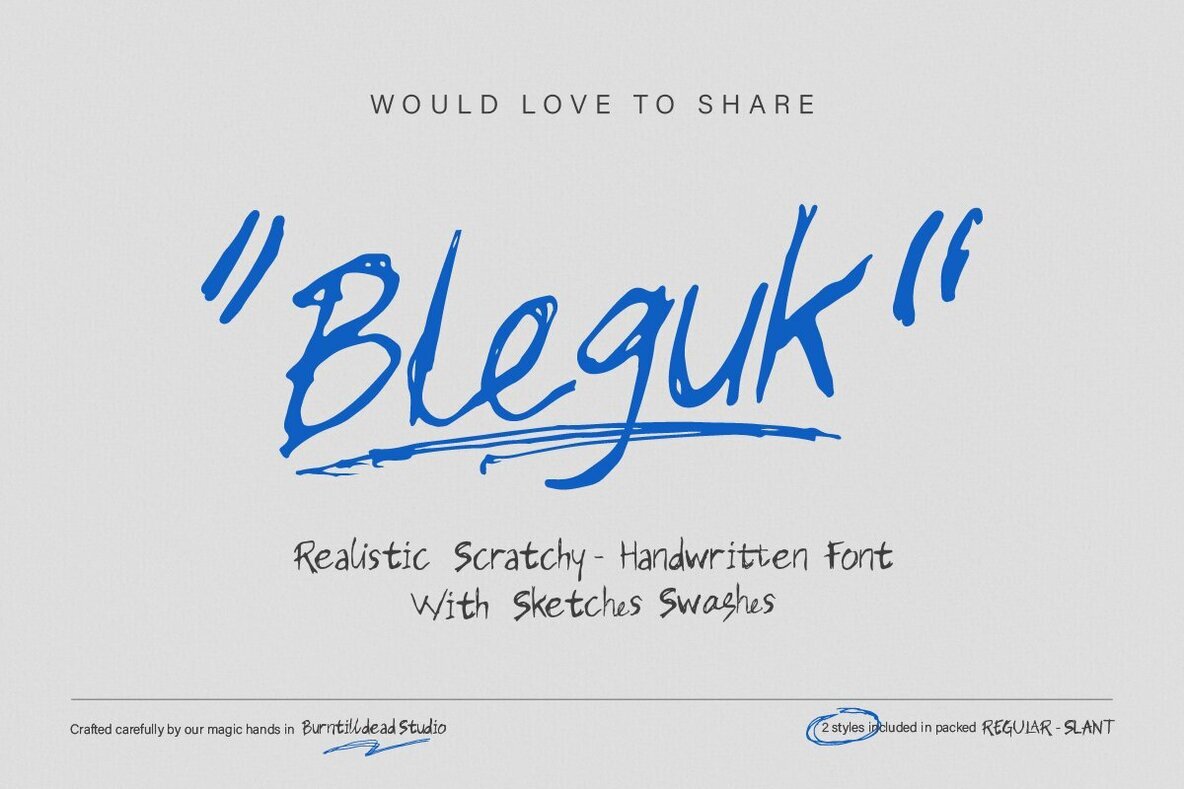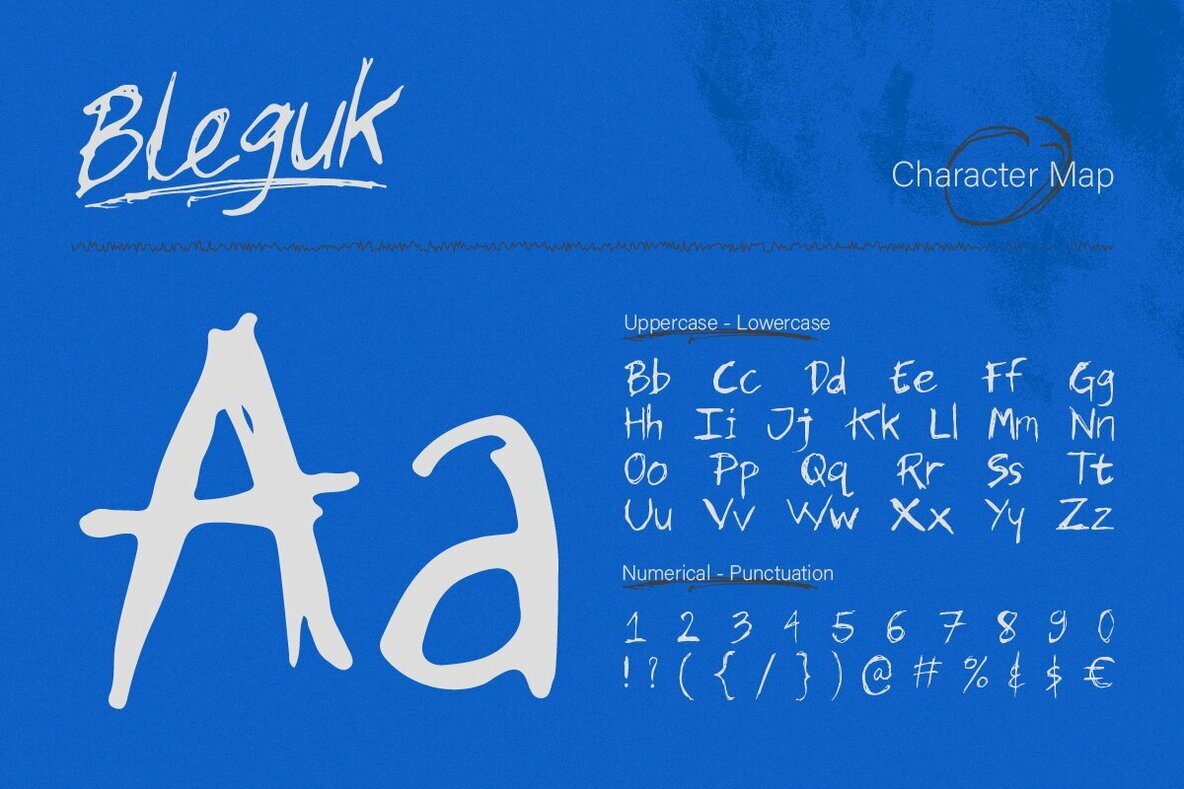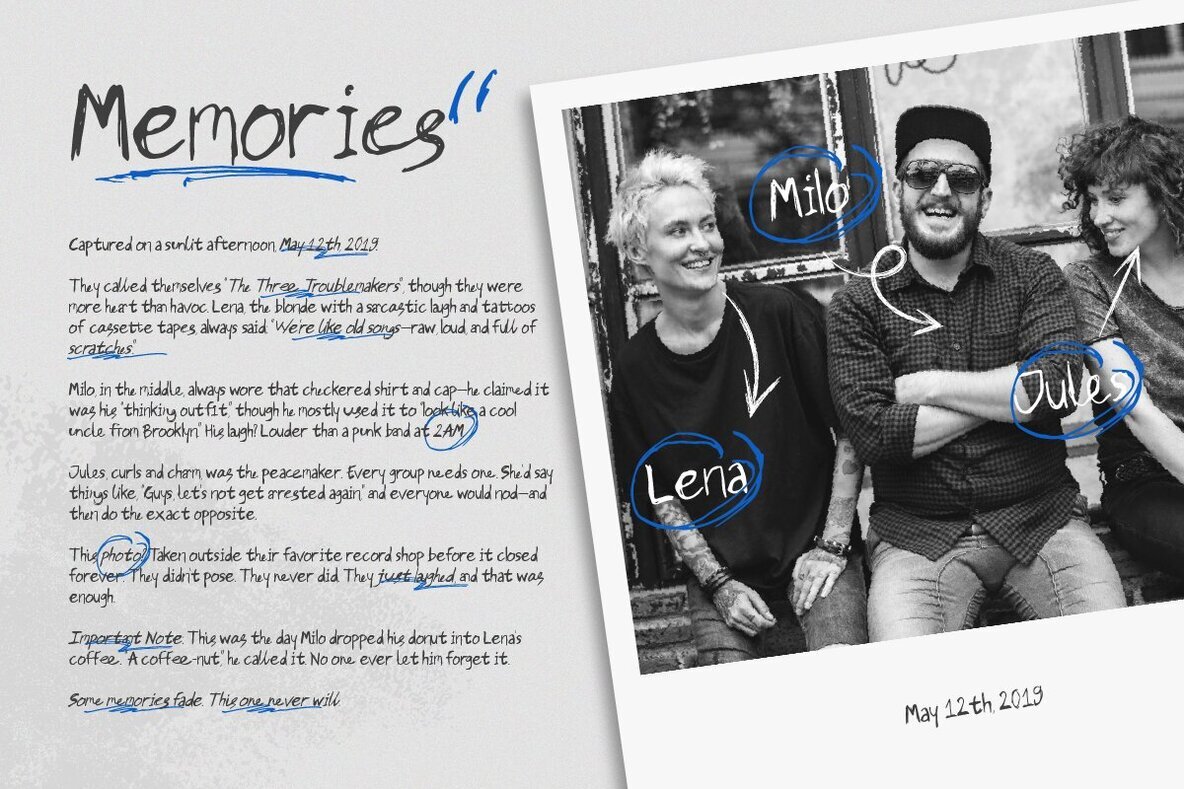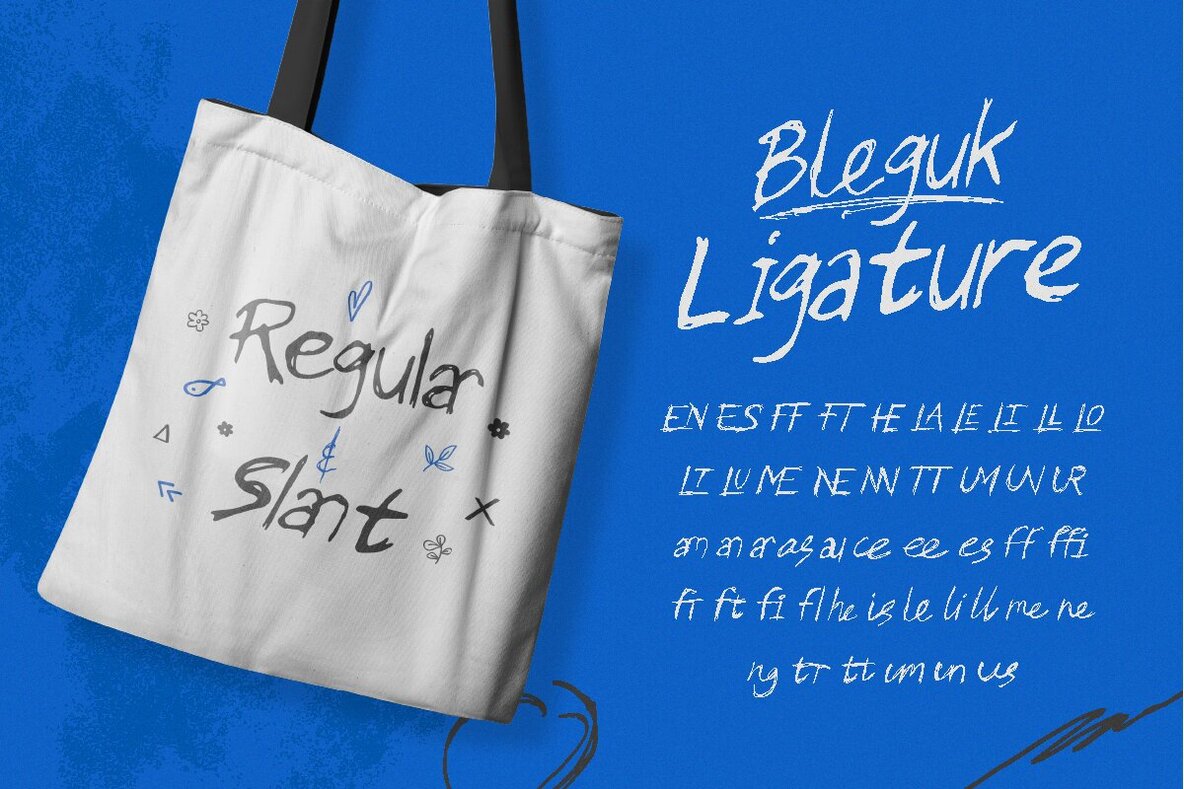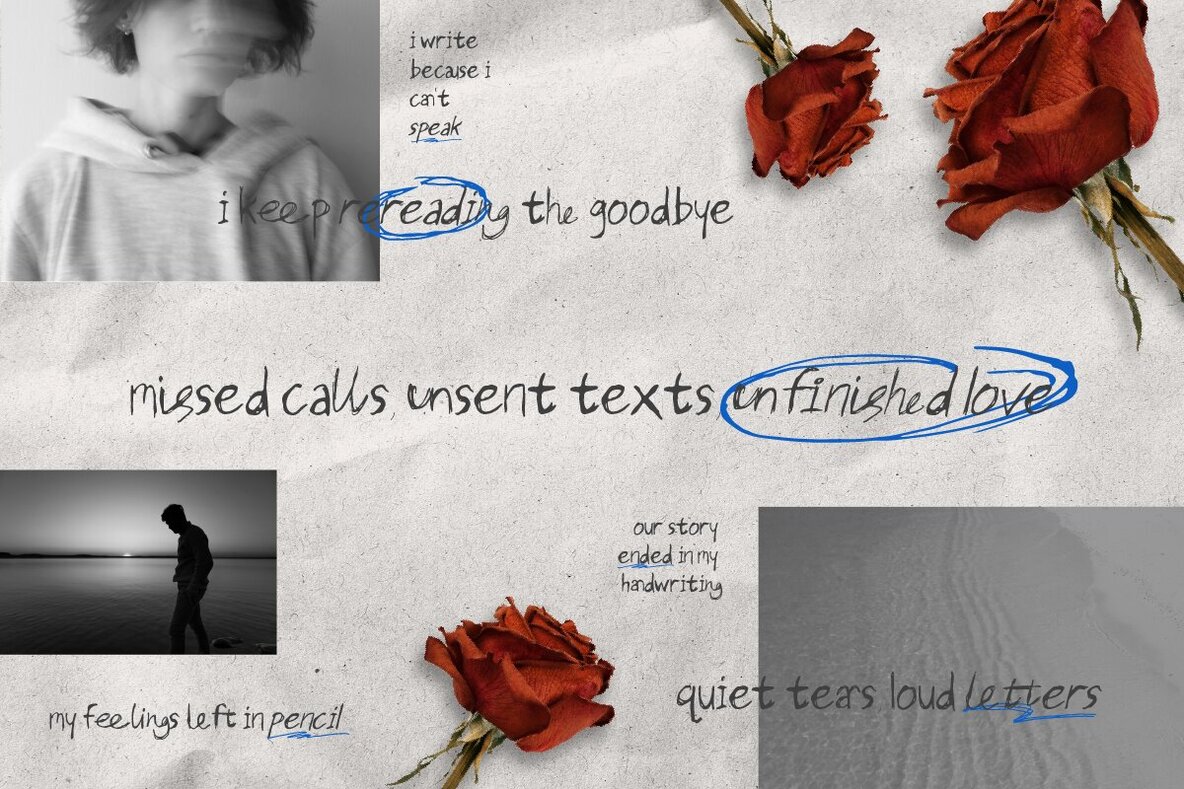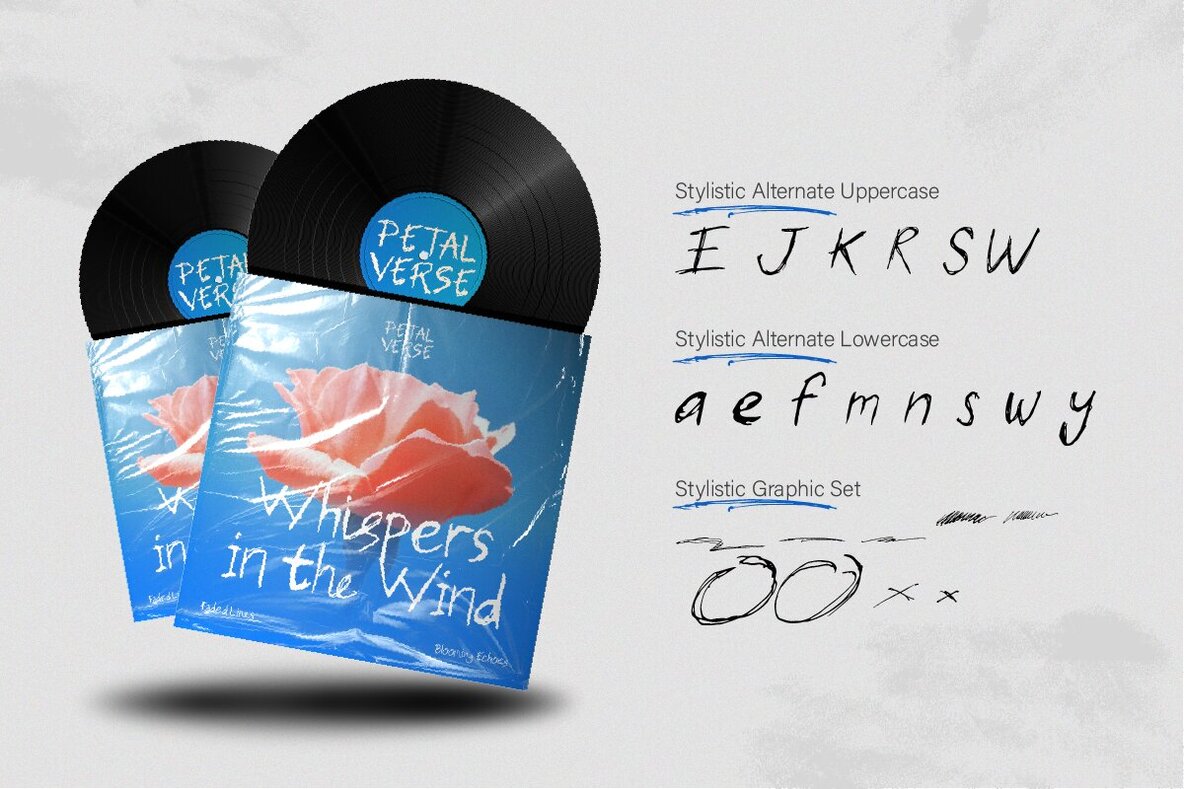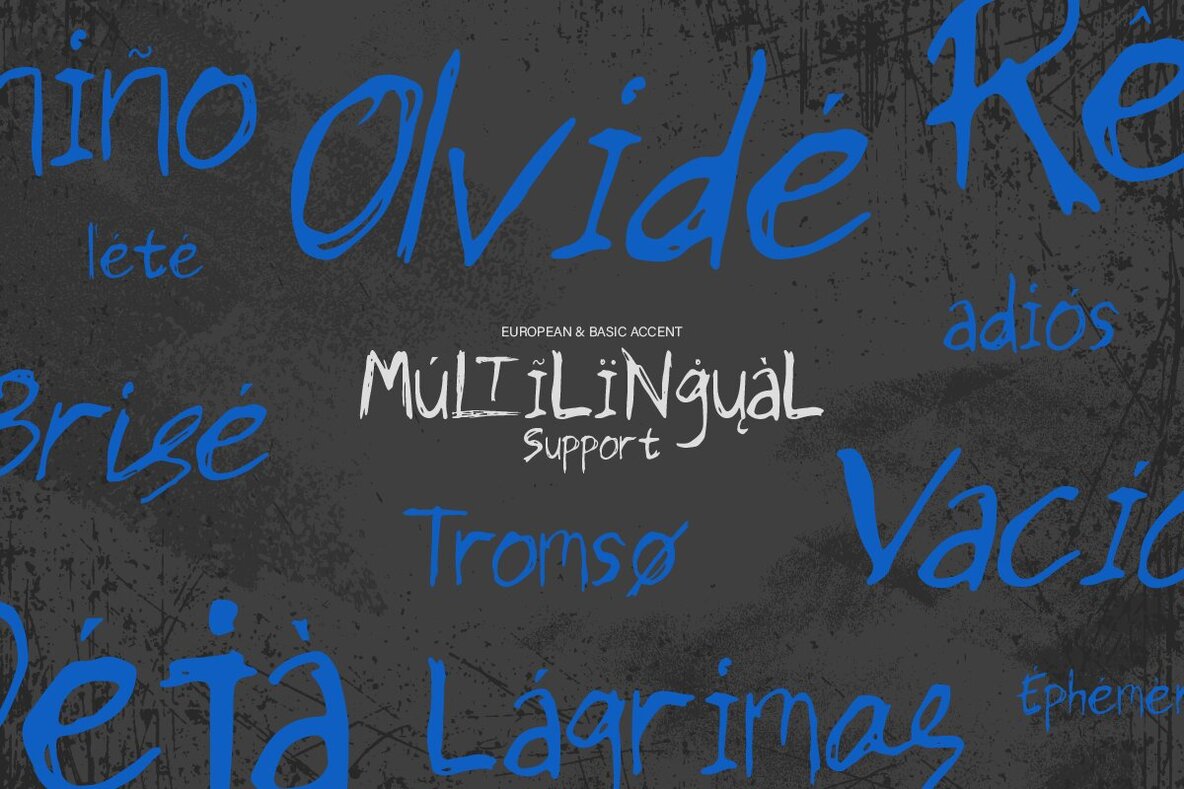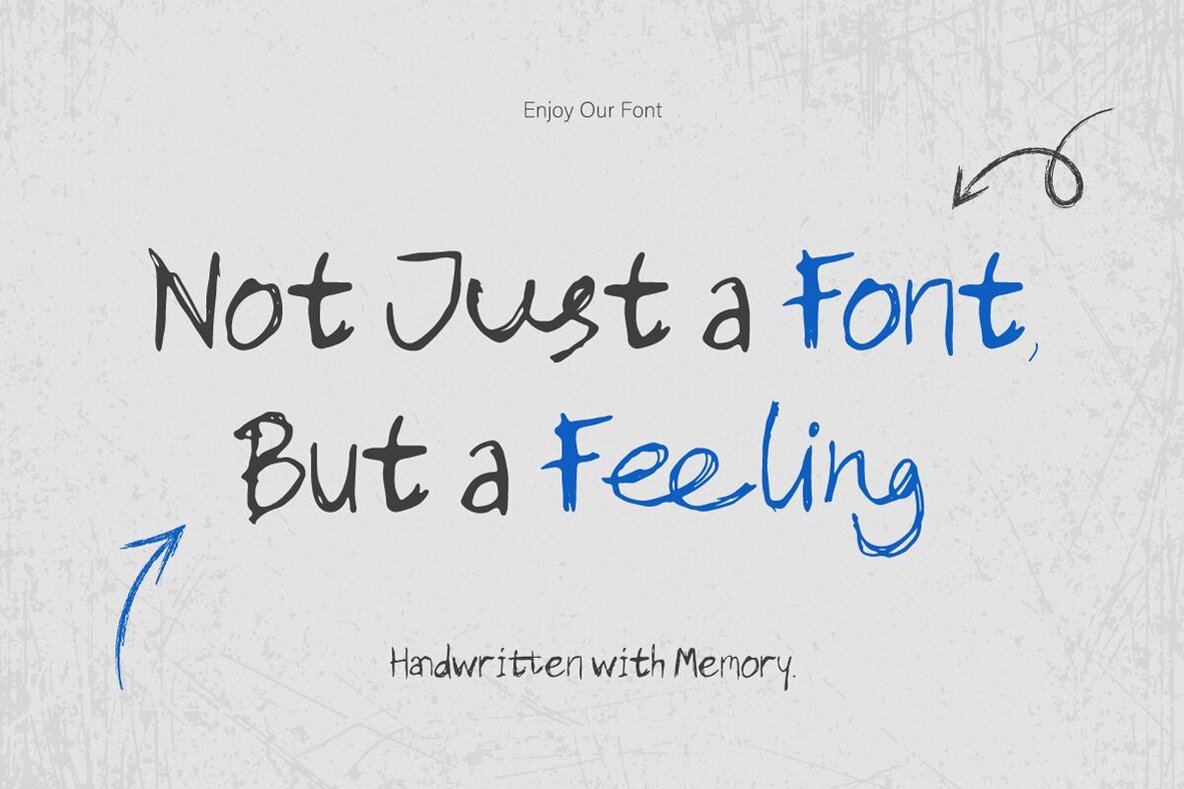
Bleguk Font
Bleguk Regular
Bleguk Slant
Bleguk captivates with its artsy, chaotic handwritten style that exudes a raw, sketchy allure. Its strong, unique personality shines in any design, offering a loud and expressive character reminiscent of journal scribbles or creative wall sketches full of stories. The font's scratchy texture creates an authentic, handmade look, akin to using a marker or pen on random paper. Bleguk is available in two styles—Regular and Slant—allowing you to adapt the design to match your desired aesthetic. Bleguk also includes a sketches and swashes graphic set, enhancing the playful energy and supporting your creative flow. Ideal for projects like indie/punk music posters, visual journaling, digital collages, scrapbooks, book covers, or IG stories, it perfectly complements any storytelling endeavor. Features:Bleguk: Chaotic Handwritten Font With Raw Charm